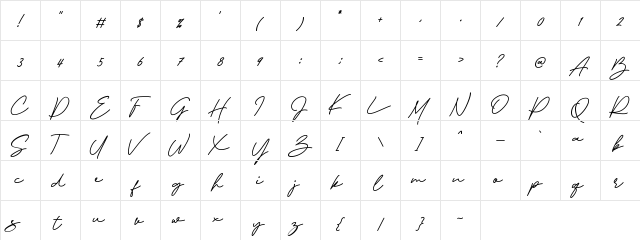
Visual Hollow Script Regular
Design Context for Visual Hollow Script Typeface
Visual Hollow Script brings a calligraphic fluidity to the page — its connecting strokes and expressive curves give it an unmistakably human quality.
Font Pairing: Combine Visual Hollow Script with a simple geometric sans for maximum contrast — the tension between flowing curves and clean structure is a classic typographic pairing.
Pro Tip: Use Visual Hollow Script for short runs of text — names, titles, or taglines. Extended body copy in script faces tires the eye quickly.